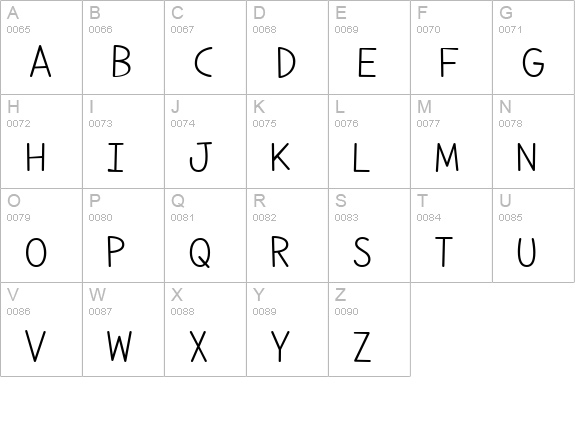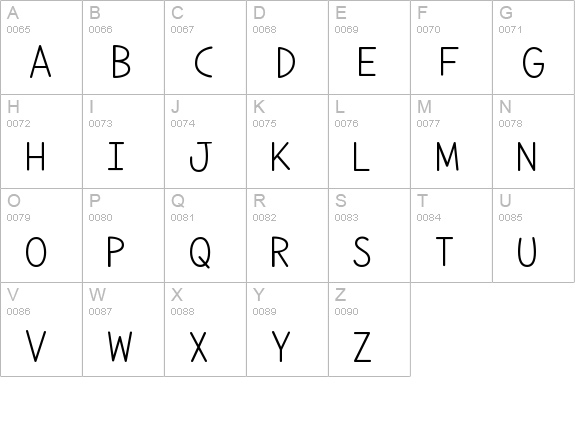
Cheddar Salad BTN Font Details
Cheddar Salad BTN is a charming and playful font that will add a touch of whimsy to any design project. With its rounded edges and unique letterforms, this font is perfect for creating eye-catching headlines, invitations, and more. Whether you're looking to add a fun twist to your next project or simply want to stand out from the crowd, Cheddar Salad BTN is sure to make a statement. The best part? Cheddar Salad BTN is available for free download at FontsMarket.com. So go ahead and give your designs a fresh, fun look with this delightful font today!